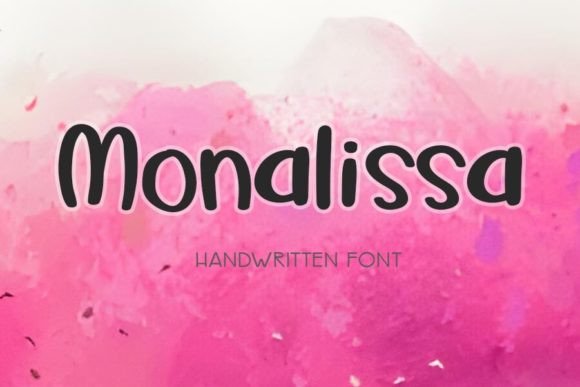
Dive into Monalissa Font, the enchanting handwritten typeface crafted by richhandberg, and unlock a world of creativity. Its playful and spirited nature is a perfect match for crafters and designers seeking a touch of whimsy in their projects.
With Monalissa, every letter dances across the page, brimming with personality and flair. Its modern design lends a fresh and contemporary feel, while its script style evokes a timeless elegance. Whether you're designing invitations, crafting personalized gifts, or simply adding a unique touch to your digital creations, Monalissa is your font soulmate.
Imagine your words taking shape, infused with the vibrant energy of Monalissa's characters. Your designs will radiate with a captivating charm that draws eyes and captivates hearts. Let Monalissa be your creative companion, guiding you on a journey of self-expression and boundless imagination.
Its versatility is truly remarkable, making it the perfect font for a myriad of projects. From cheerful birthday cards to eye-catching social media posts, Monalissa effortlessly adapts to your creative vision. Its playful nature makes it a perfect choice for children's books, adding a touch of magic and wonder to every page.
Join the creative revolution and embrace Monalissa Font, your gateway to a world of enchanting possibilities. Let your creativity flourish, and let your designs speak volumes with this captivating handwritten font.